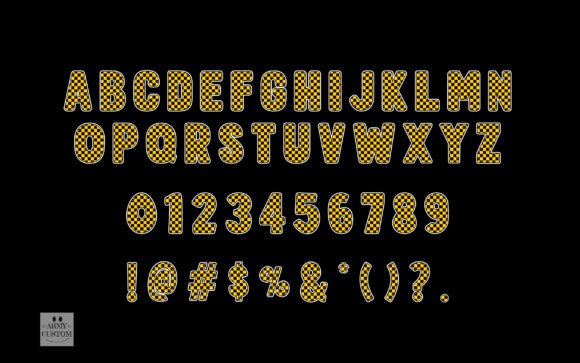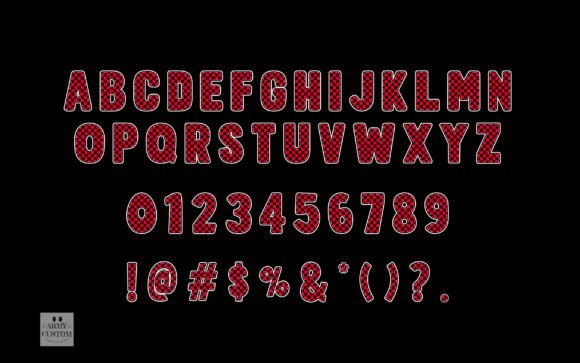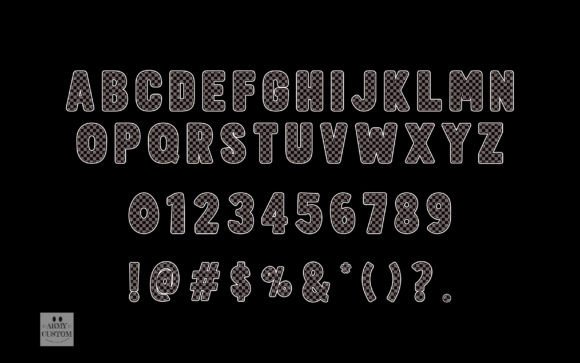
Checkered Army Font
A checkered font, also known as a checkered alphabet, features characters that incorporate a pattern resembling a checkerboard. This pattern typically consists of alternating squares or rectangles of contrasting colors, such as black and white or other color combinations. Here’s a description of a checkered alphabet.The black version of this font is compatible with Cricut Design Space and other cutting machines.Note! The color version of this font is only compatible with certain design programs incl. PhotoShop, Illustrator, Silhouette, and Inkscape. The OTF and/or TTF files of the color version are not compatible with Cricut. For more information on how to use this type of font please check our Ultimate Font Guide .